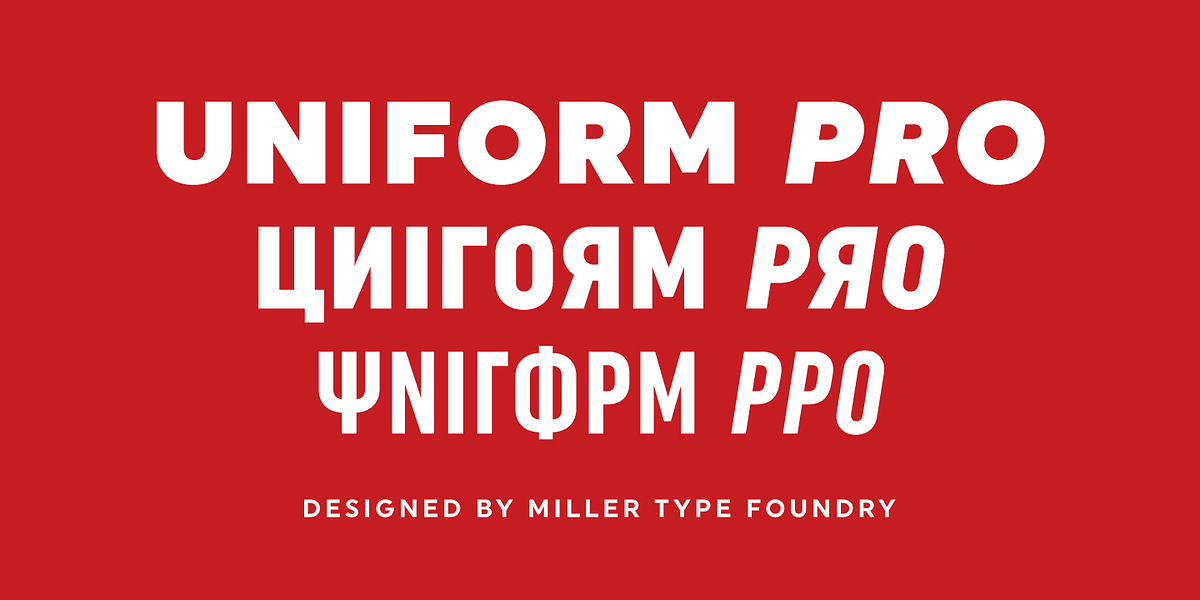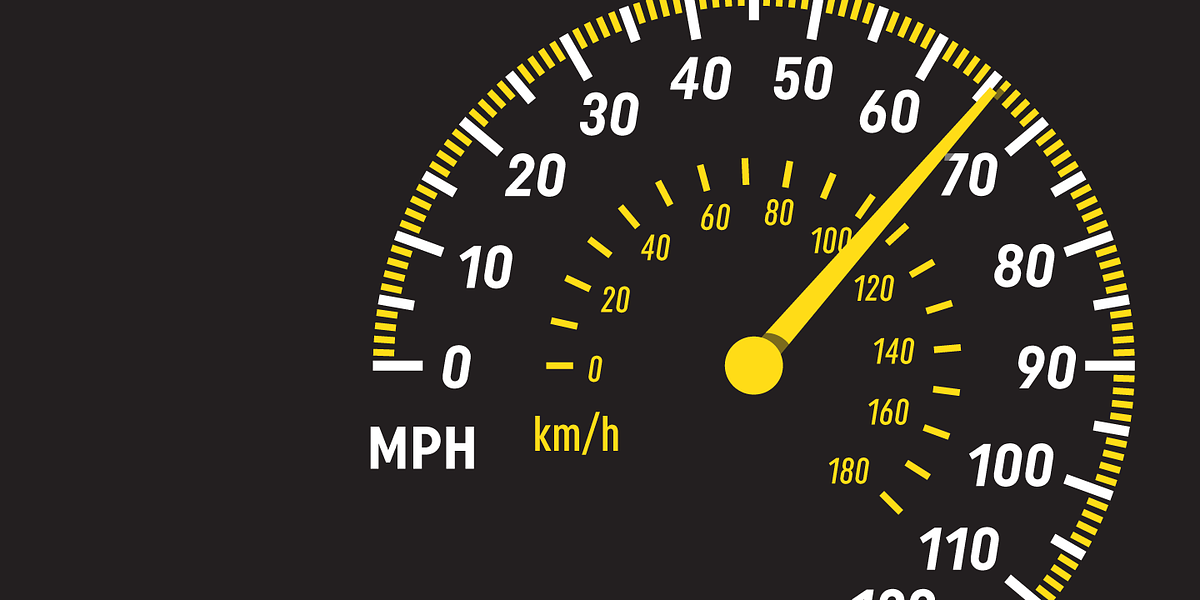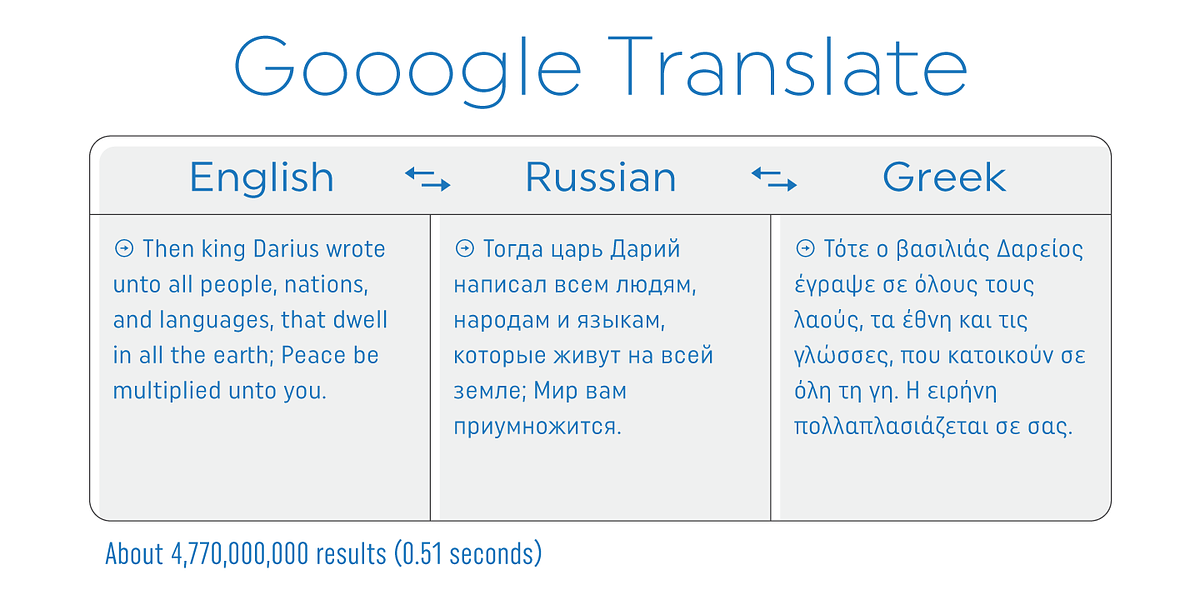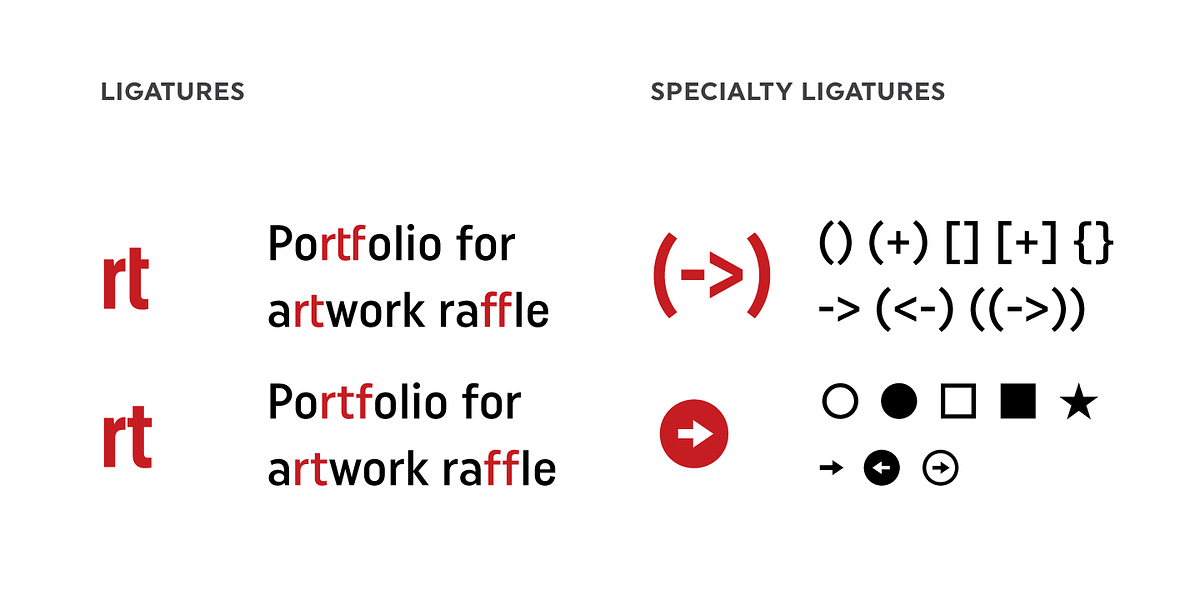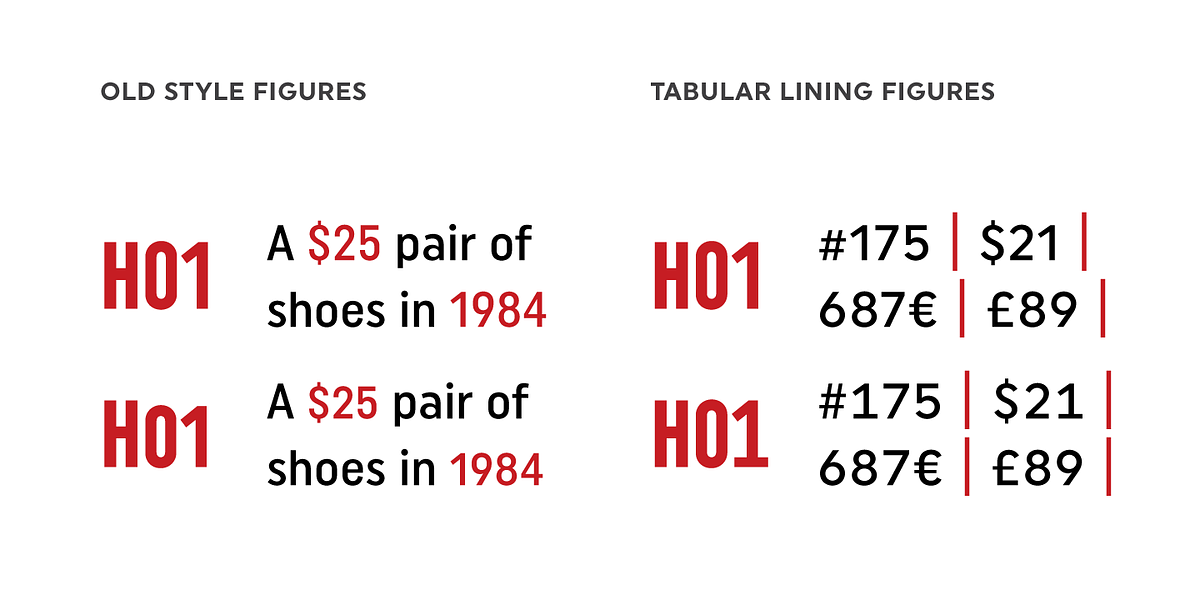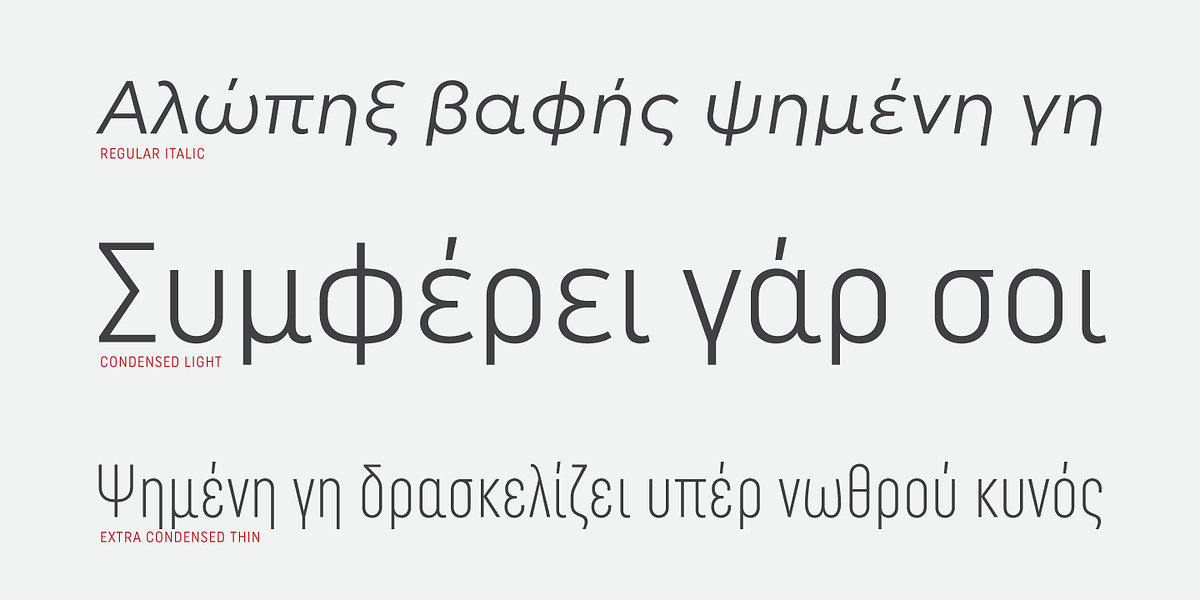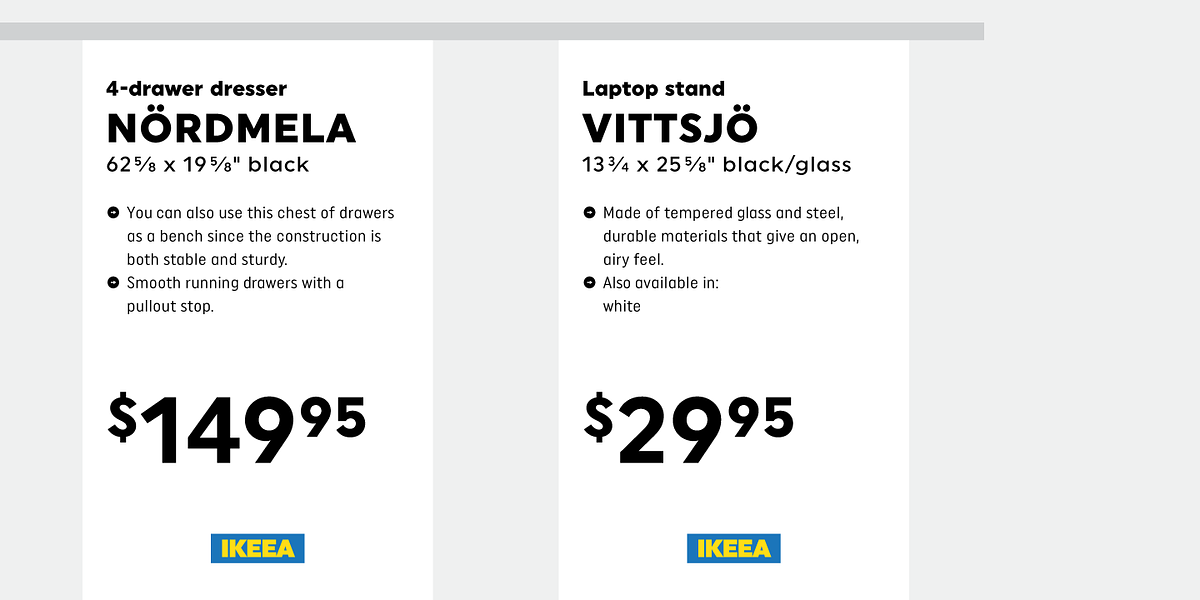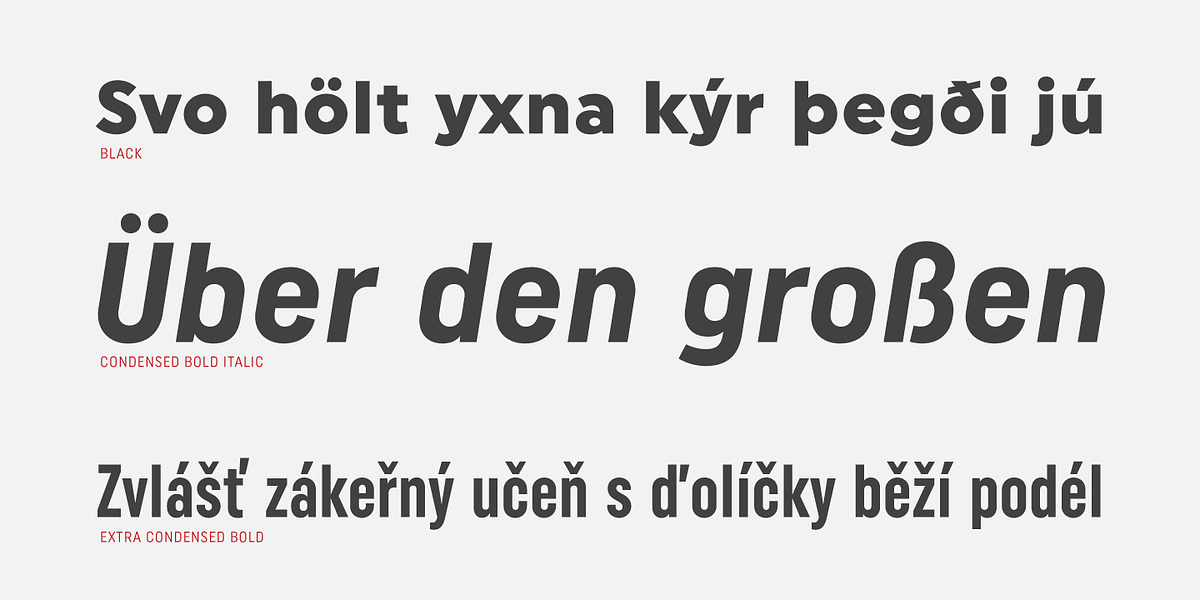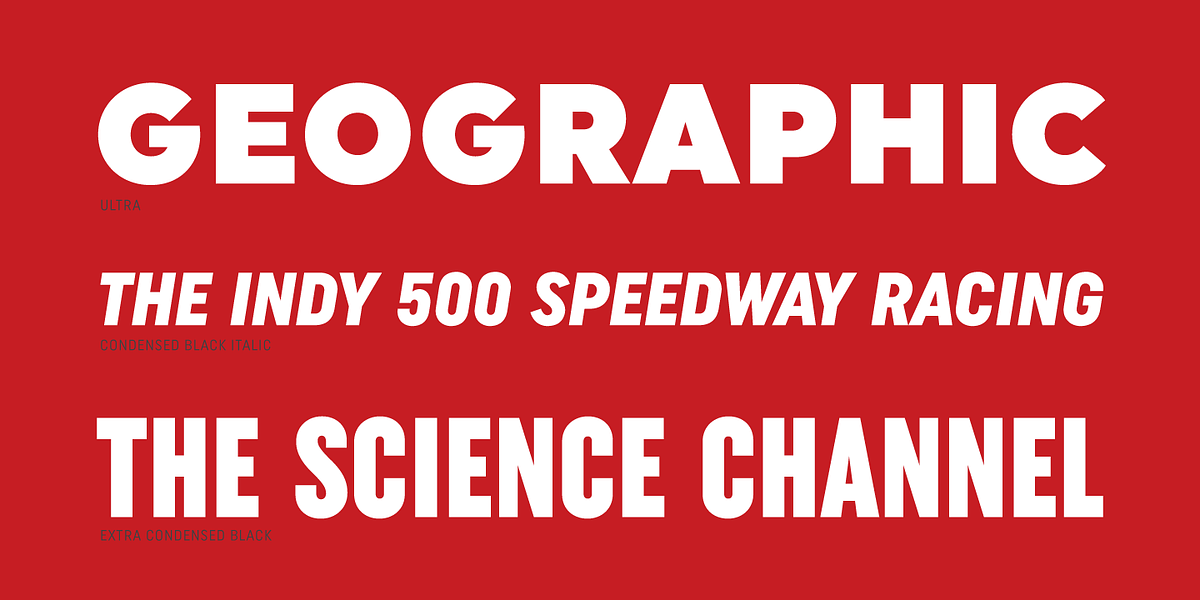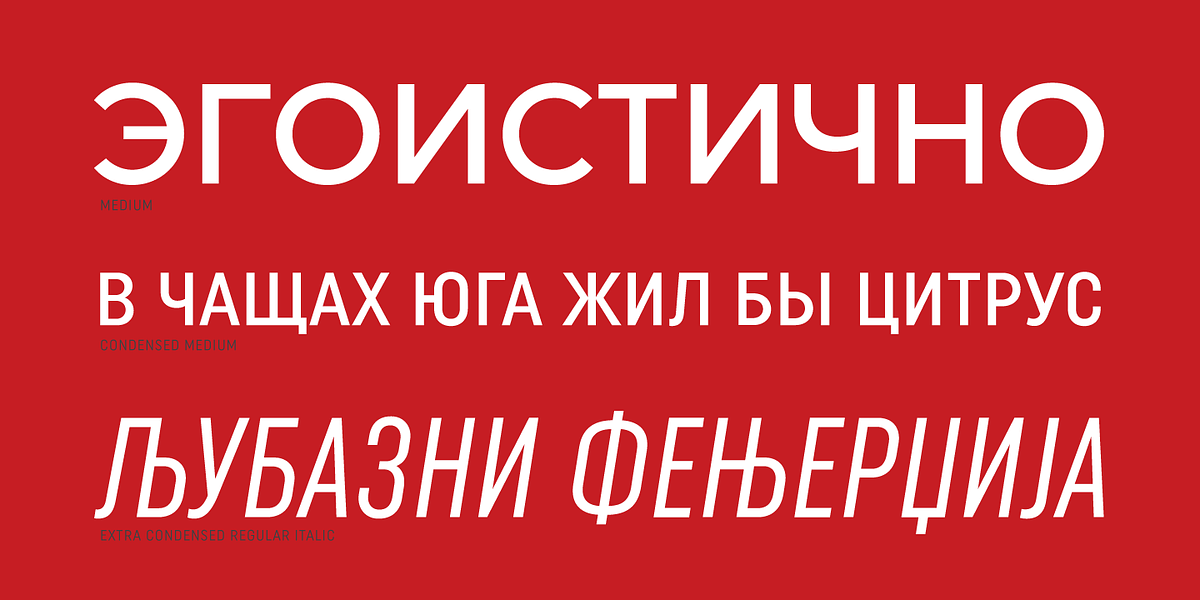
Uniform Pro
Uniform is a geometric sans-serif typeface designed for impactful headlines and branding. Its unique design, inspired by the shape of a 'O' on a can of dog food, transforms into a straight-sided shape when condensed. The font family offers extended language support, including Cyrillic and Greek character sets, integrated italic styles, additional weights, and OpenType features.